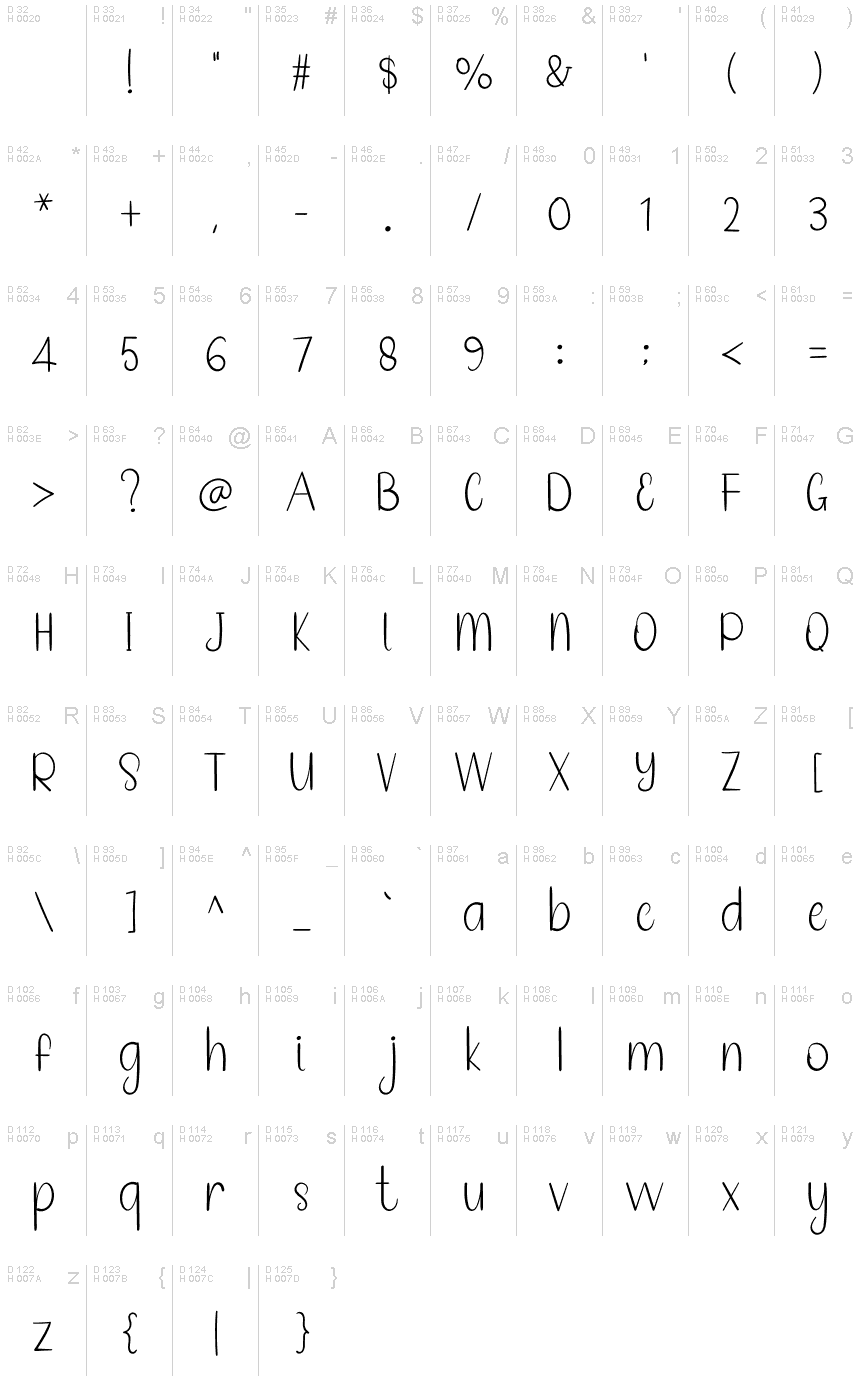
Family Vacation
Looking for a playful font to add character to your projects? Look no further than Family Vacation, the charming handwritten typeface created by Belina Studio. With its light weight and cute style, this font is perfect for adding a touch of whimsy to invitations, greeting cards, or social media graphics. Whether you're promoting a family-friendly event or simply want to inject some fun into your designs, Family Vacation is the perfect choice. Try it out today and see how it can elevate your projects!
the latest style letters are perfect for wall displays, wedding invitations, social media post logos, advertisements, product packaging, product designs, labels, photography, watermarks, invitations, stationery, and any project that requires taste handwriting.